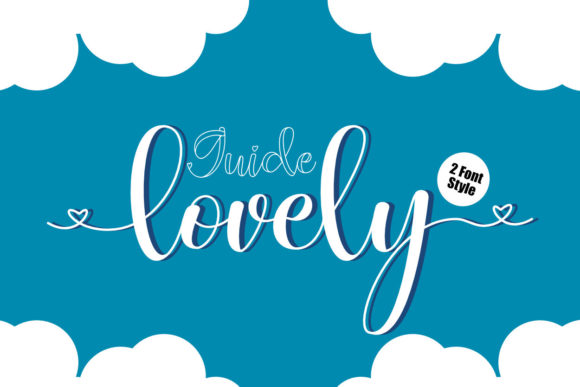
Discover the Charm of Guide Lovely Font: A Handwritten Delight
Are you on the hunt for a font that exudes warmth, elegance, and a touch of whimsy? Look no further than the Guide Lovely Font, a stunning handwritten font that has captured the hearts of designers and crafters alike. This beautiful font is a match made in heaven, perfect for creating a wide range of projects that require a personal and authentic feel.
The Allure of Guide Lovely Font
Guide Lovely Font is a carefully crafted handwritten font that boasts a unique and charming personality. Its authentic feel is reminiscent of handwritten script, making it perfect for projects that require a personal touch. Whether you’re designing wedding invitations, stationery, social media posts, or greeting cards, this font is sure to impress.
With Guide Lovely Font, the creative possibilities are endless. Here are just a few ideas to get you started:
- Wedding Invitations: Create gorgeous wedding invitations that set the tone for a romantic and unforgettable celebration.
- Stationery: Design beautiful stationery art that showcases your personal style and adds a touch of elegance to your correspondence.
- Social Media Posts: Craft eye-catching social media posts that grab attention and leave a lasting impression.
- Greeting Cards: Create cute and personalized greeting cards for special occasions, such as birthdays, holidays, and anniversaries.
Why Choose Guide Lovely Font?
So, what sets Guide Lovely Font apart from other fonts? Here are just a few reasons why designers and crafters love this font:
- Unique and Authentic: Guide Lovely Font has a one-of-a-kind personality that is both authentic and charming.
- Easy to Read: The font is carefully designed to be easy to read, making it perfect for a wide range of projects.
- High-Quality: The font is of exceptionally high quality, ensuring that your projects look professional and polished.
Tips for Using Guide Lovely Font
To get the most out of Guide Lovely Font, here are a few tips to keep in mind:
- Experiment with Sizes: Try out different font sizes to add visual interest and emphasis to your projects.
- Mix and Match: Combine Guide Lovely Font with other fonts to create a unique and eye-catching look.
- Play with Colors: Experiment with different colors and textures to add depth and personality to your projects.
In conclusion, Guide Lovely Font is a beautiful handwritten font that is sure to capture your heart. With its authentic feel, unique personality, and versatility, it’s the perfect choice for designers and crafters looking to add a touch of elegance and whimsy to their projects. So why wait? Fall in love with Guide Lovely Font and start creating stunning projects that showcase your personal style.